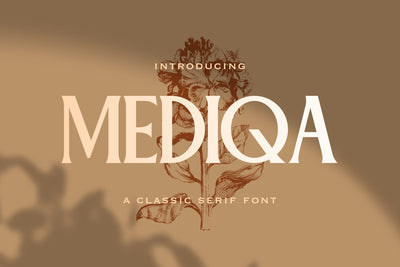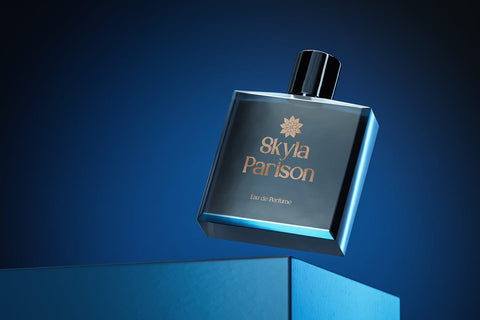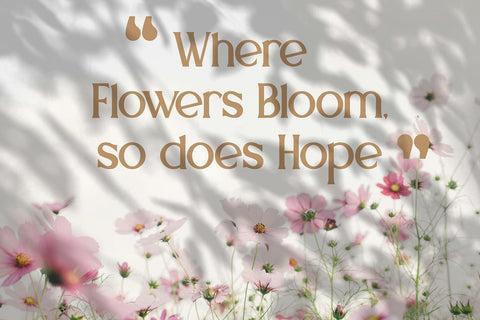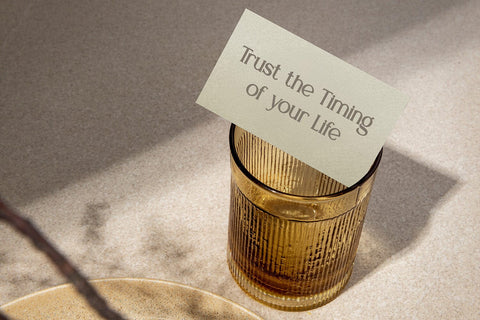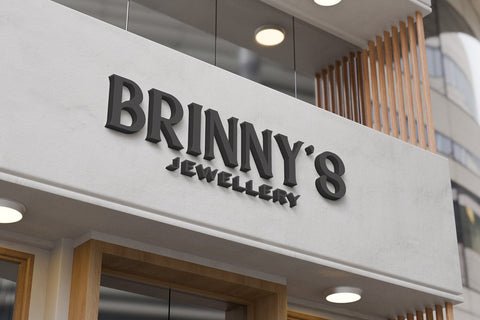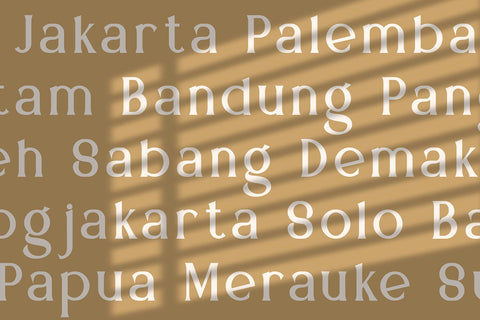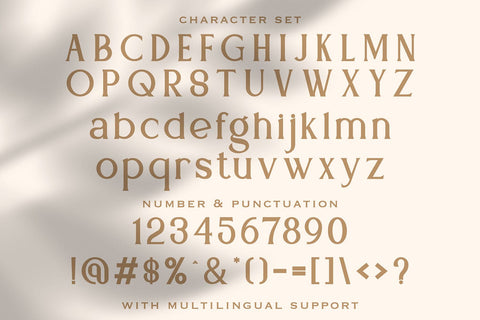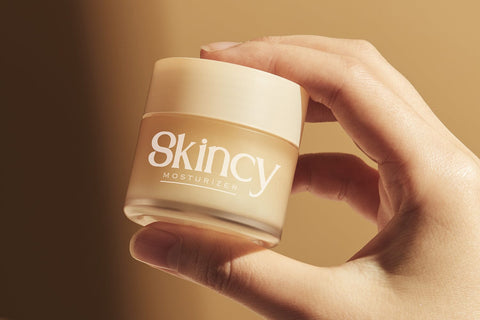
Mediqa - Classic Serif Font
Introducing Mediqa - Classic Serif Font
Mediqa is a classic serif font designed with a timeless and elegant style. Its balanced letterforms and refined serifs create a sophisticated appearance that works beautifully for clean and professional typography.
This font is perfect for logos, branding, editorial layouts, headlines, packaging, book covers, and modern typography projects. Mediqa brings a sense of clarity, elegance, and professionalism that enhances both digital and print designs.
With its classic structure and graceful details, Mediqa delivers a versatile serif style that helps create polished and visually appealing compositions.